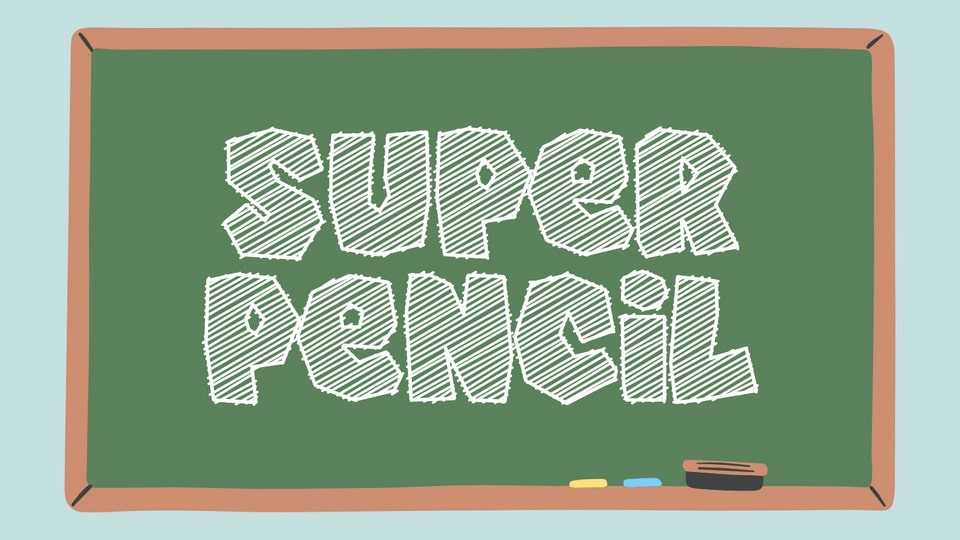
Download Super Pencil font, a robust hand-crafted sketch font that emanates strength and artistic authenticity. The font is crafted with bold strokes and expressive lines, capturing the raw energy of a hand-drawn sketch.